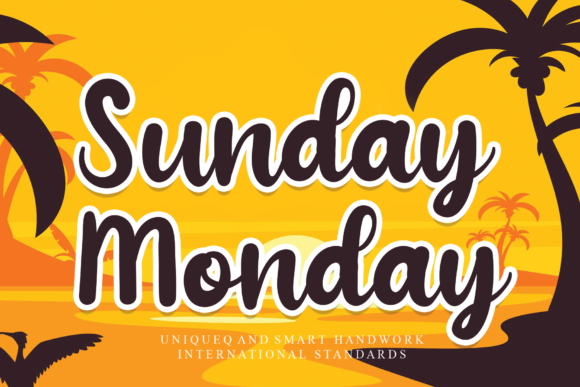
Sunday Monday Font
About Sunday Monday Font
Sunday Monday is a delicate and elegant handwritten font. Its distinct and well rounded letters make this font a masterpiece. Fall in love with its incredibly versatile style and use it to create spectacular designs!